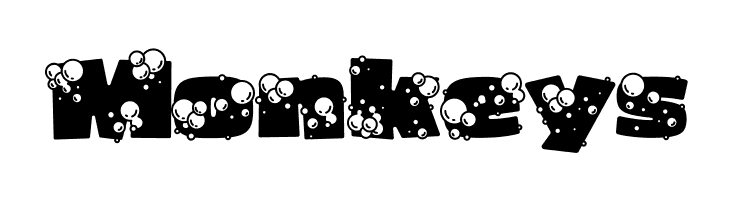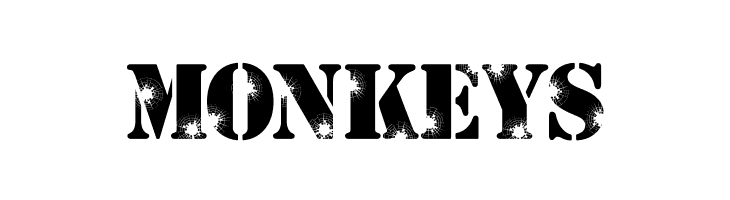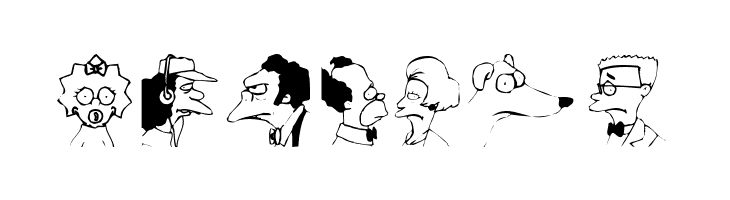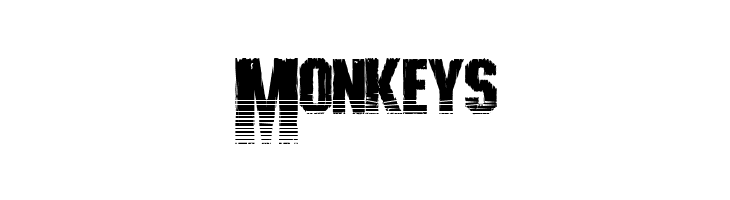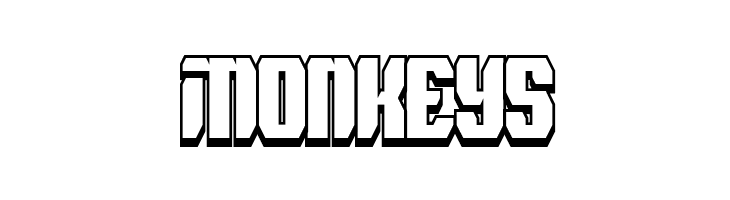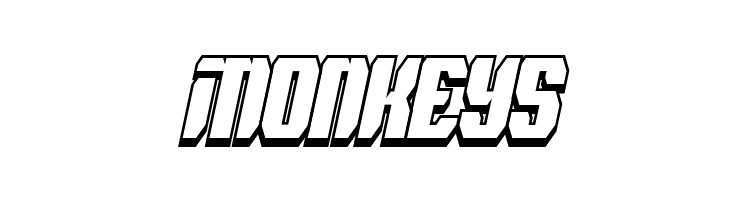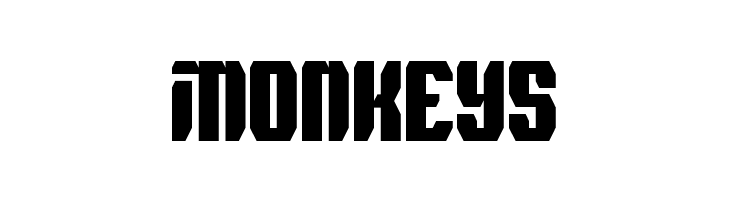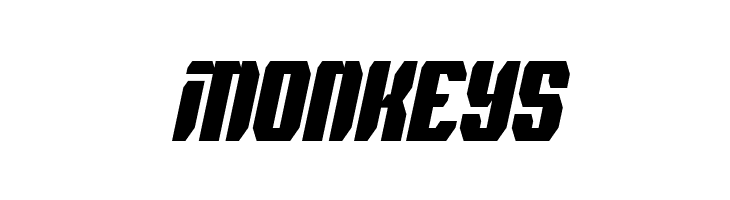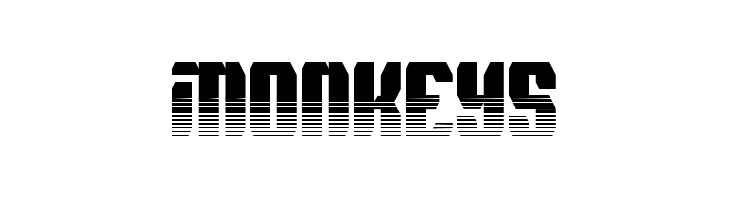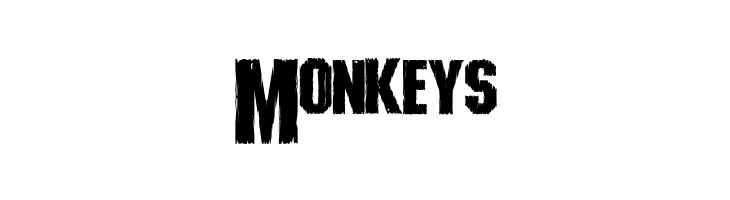
A bold, distressed font with a shattered effect, perfect for edgy designs.
A bold, rugged font with a distressed, shredded appearance.
A playful, bubble-filled decorative font with bold, rounded characters.
Cartoonish, hand-drawn display font with character portraits as glyphs.
A bold, geometric stencil-style font with angular lines and a modern industrial feel.
A bold, italic font with sharp angles and a futuristic style.
A bold, geometric font with a three-dimensional shadow effect.
Bold, italicized font with a shadow effect and a futuristic, angular design.
A bold, futuristic font with a distinctive striped pattern and geometric style.